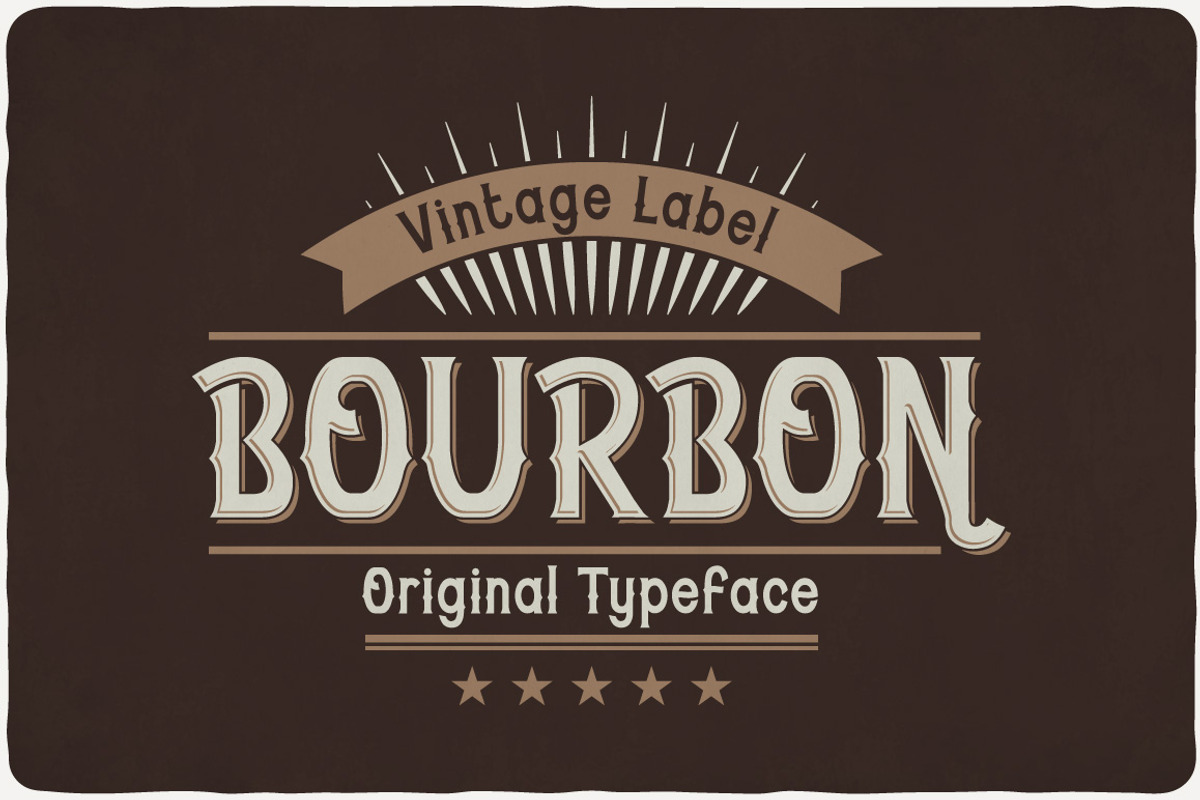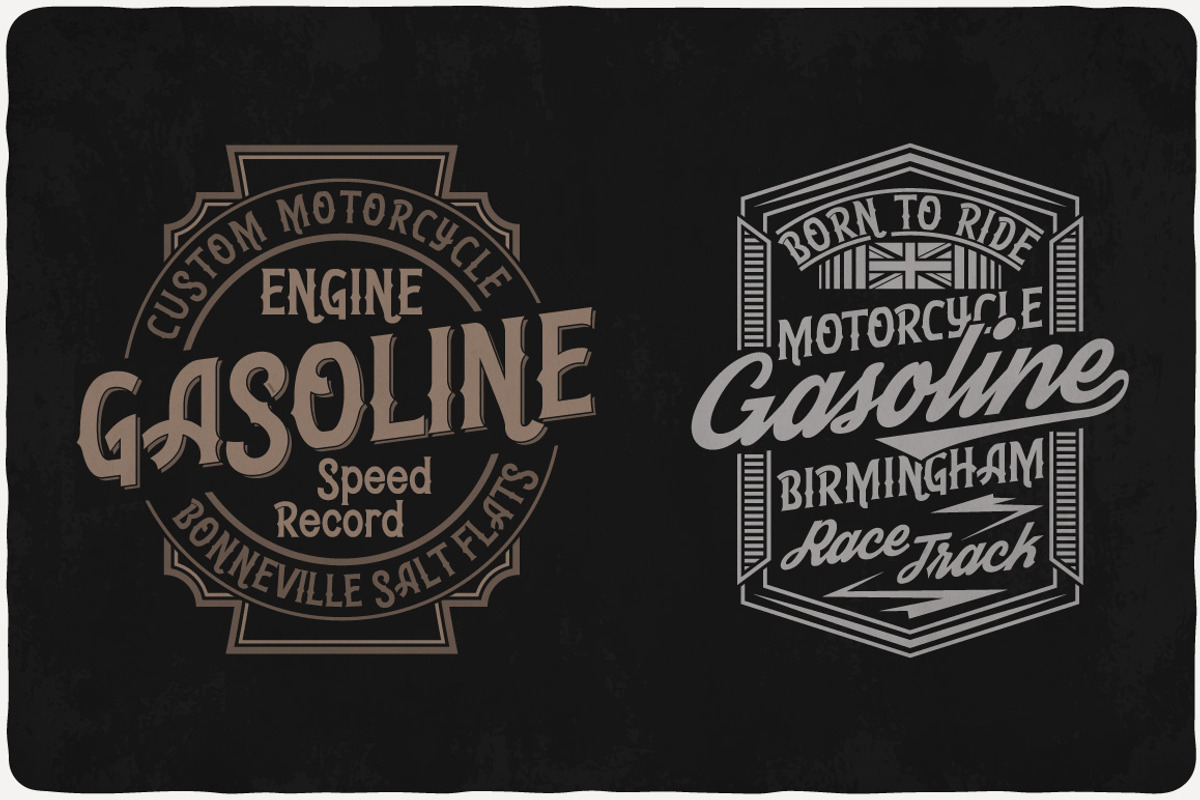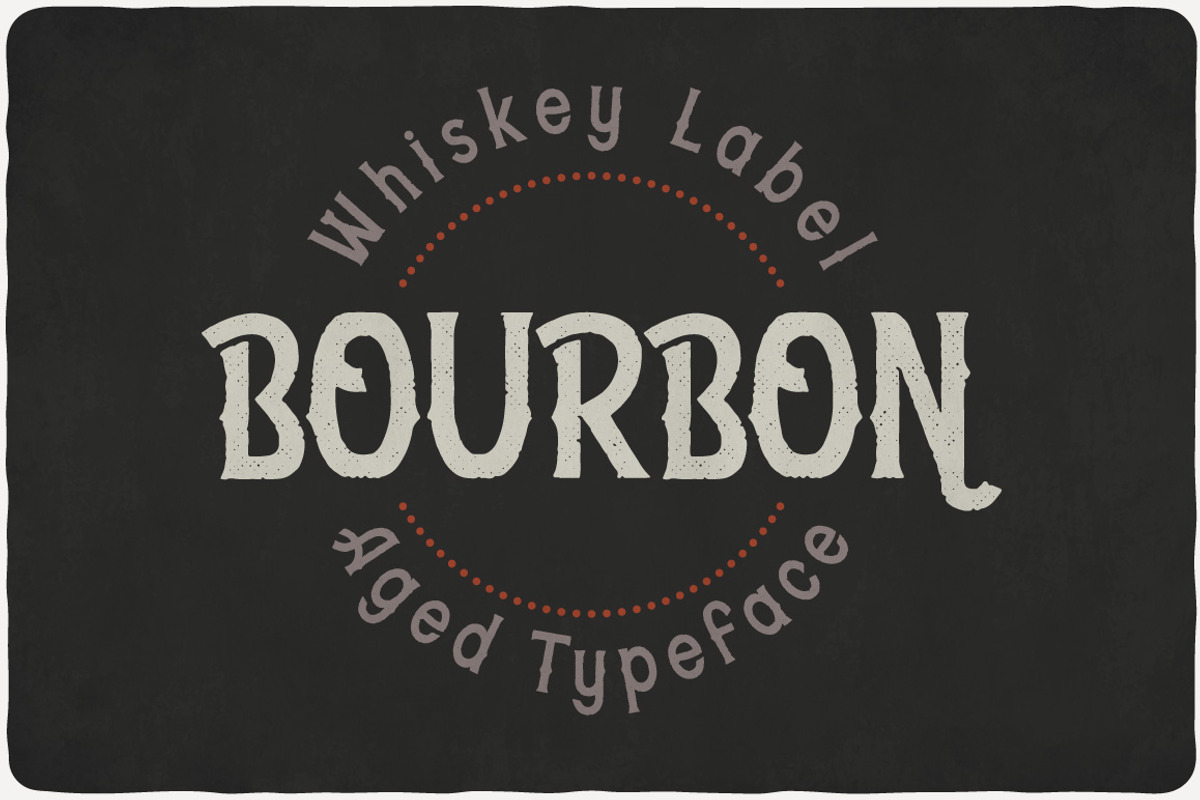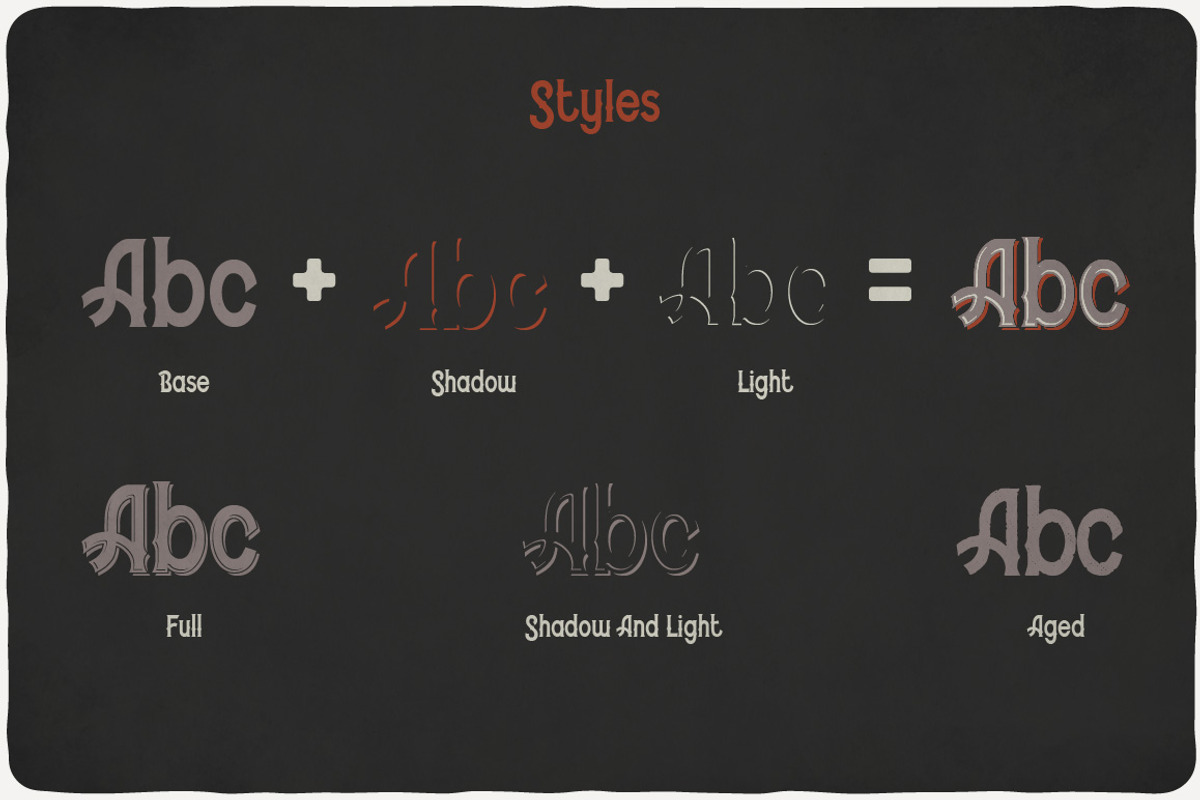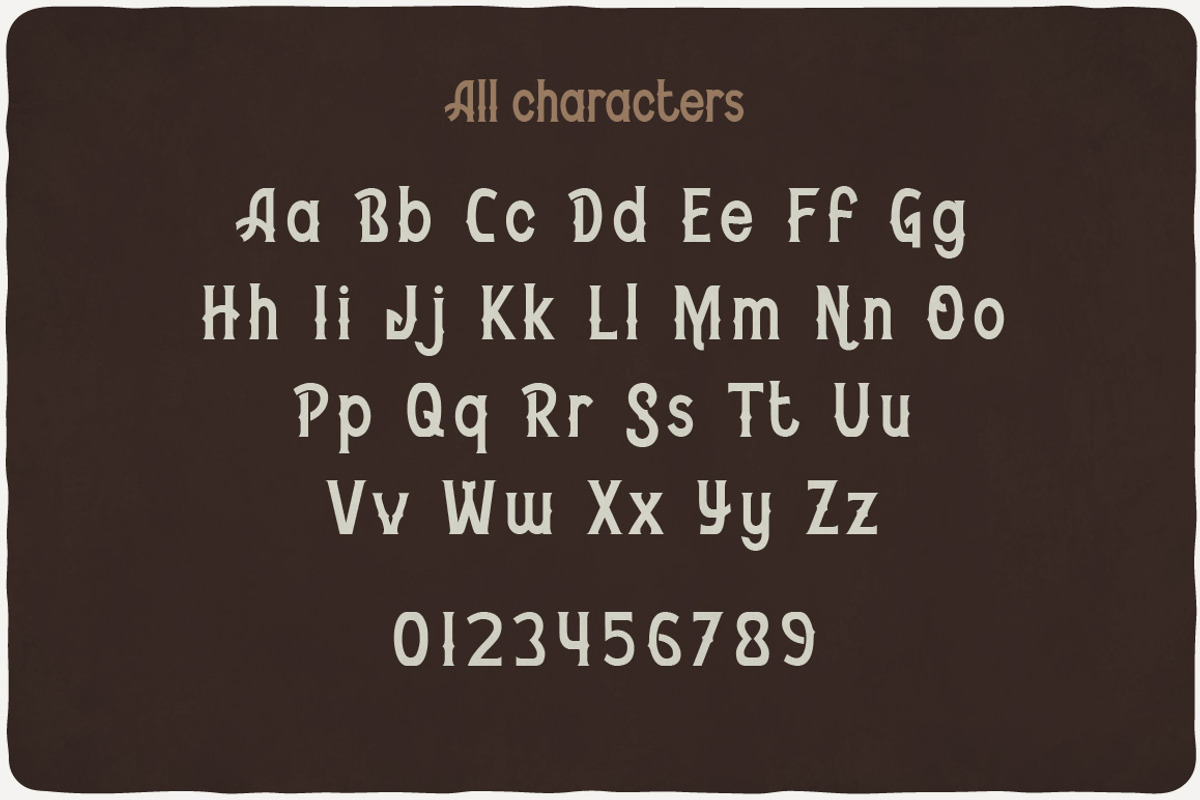
Bourbon Typeface
Introducing a vintage look label typeface named "Bourbon". It's made in old school and vintage label style. Typeface is good viewed on any yours design.
- Bourbon Light
- Bourbon Shadow Light
- Bourbon Aged
- Bourbon Base
- Bourbon Full
- Bourbon Shadow
Why Bourbon Typeface is worth a look